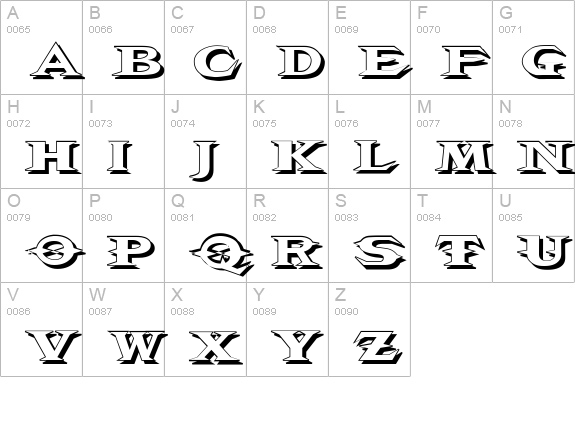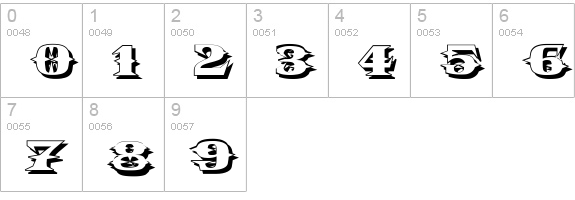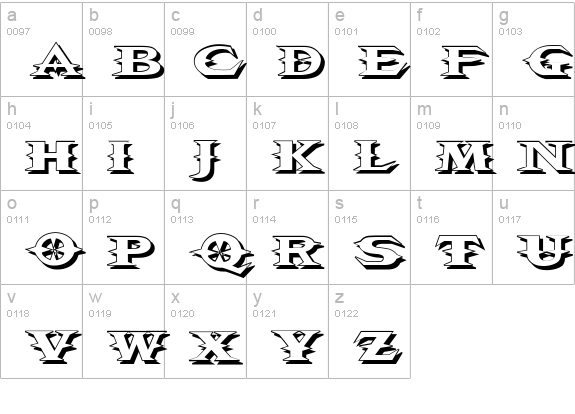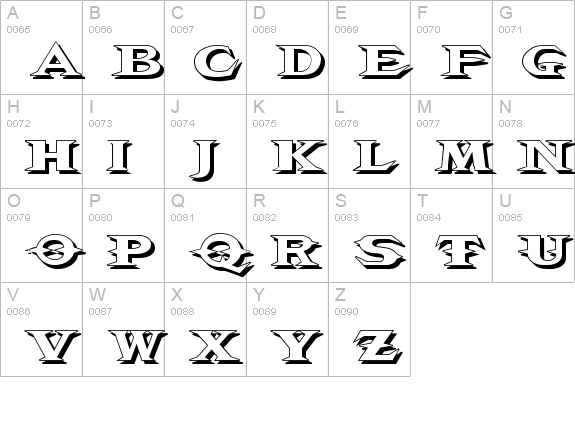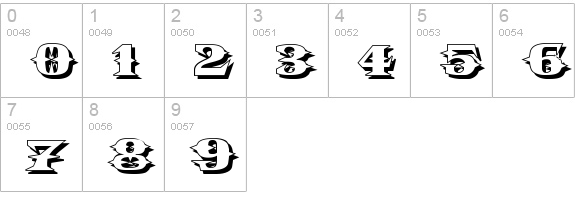
VTCBelialsBladeShadow Font Details
VTCBelialsBladeShadow font is a stunning typeface that exudes an air of mystery and intrigue. Its unique design captures the essence of darkness and shadows, making it perfect for adding a touch of drama to any project. With its sharp and angular letterforms, this font commands attention and demands to be noticed. Each character is meticulously crafted, with intricate details that create a sense of depth and dimension. The shadow effect adds an extra layer of intensity, giving the font a striking and dramatic appearance. VTCBelialsBladeShadow font is not only visually captivating but also highly versatile. It can be used for a wide range of creative projects, including logos, branding, headlines, posters, and more. Whether you're designing a gothic-inspired website or creating a spooky Halloween invitation, this font will undoubtedly make a lasting impression. One of the best things about VTCBelialsBladeShadow font is that it is available for free. You can easily download it at FontsMarket.com, a trusted source for high-quality fonts. By offering this font for free, the creators have made it accessible to everyone, allowing designers and enthusiasts alike to unleash their creativity without any limitations. So, if you're searching for a font that combines elegance, darkness, and a touch of mystery, look no further than VTCBelialsBladeShadow font. Download it for free at FontsMarket.com and let your imagination run wild. Unleash the power of shadows and bring your designs to life with this captivating typeface.